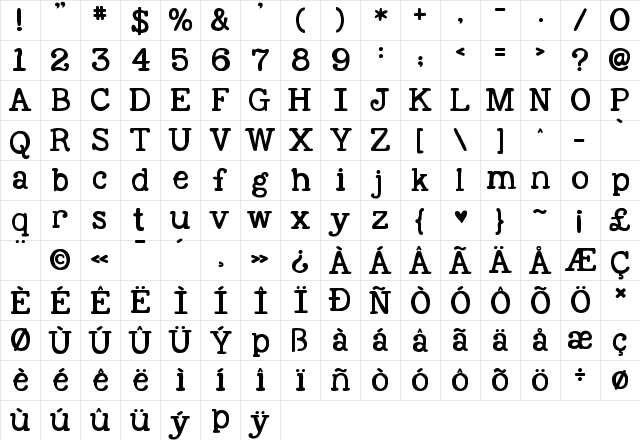
KG Next to Me Solid Regular Free Font
KG Next to Me Solid Regular
Foundry: Kimberly Geswein
Designer: Kimberly Geswein
Design Context for KG Next to Me Solid
KG Next to Me Solid is a composed and adaptable typeface that performs quietly and consistently across a wide range of design contexts.
Pro Tip: Use KG Next to Me Solid in both headline and body roles to test its range before committing to a single application.